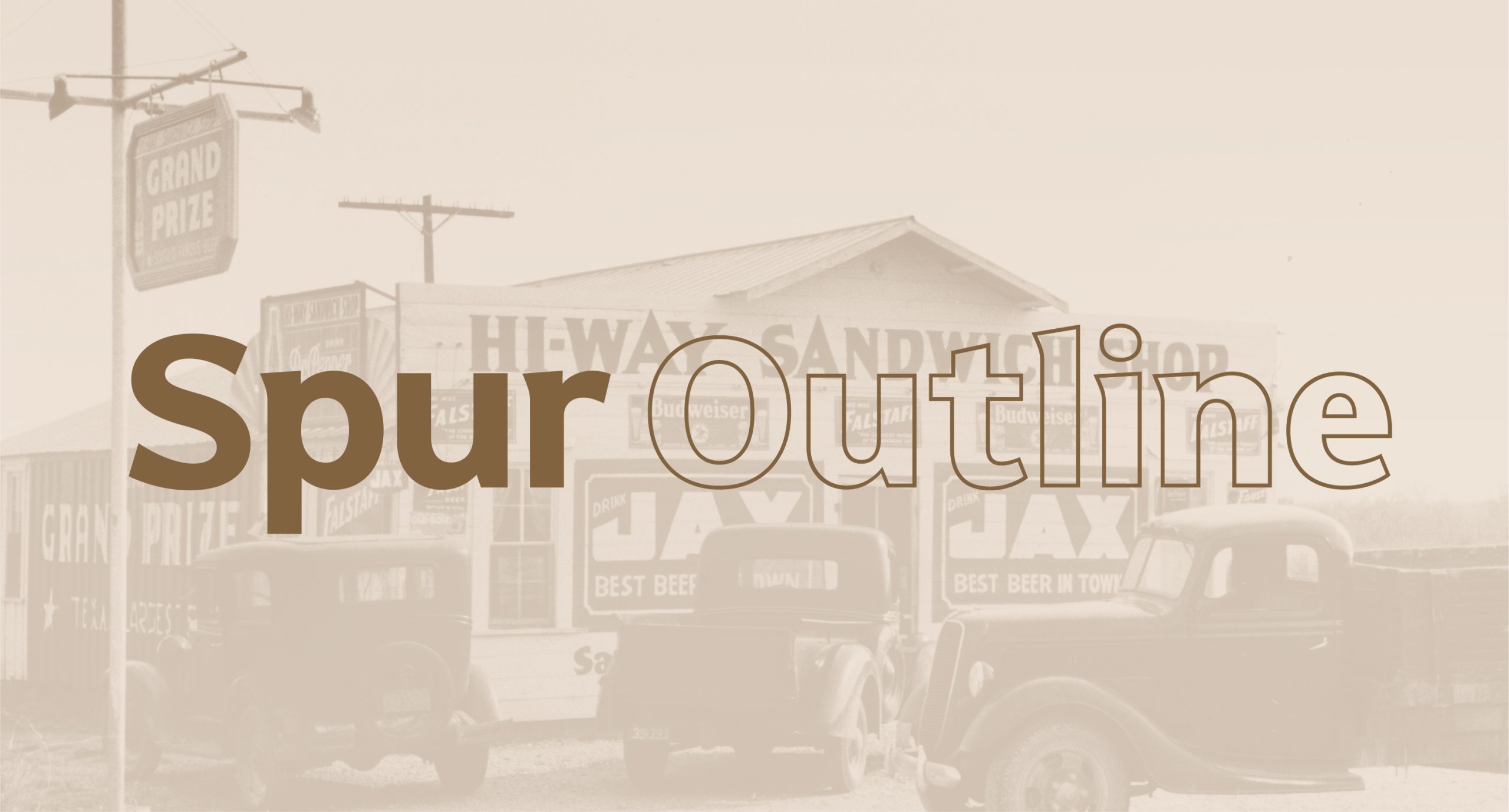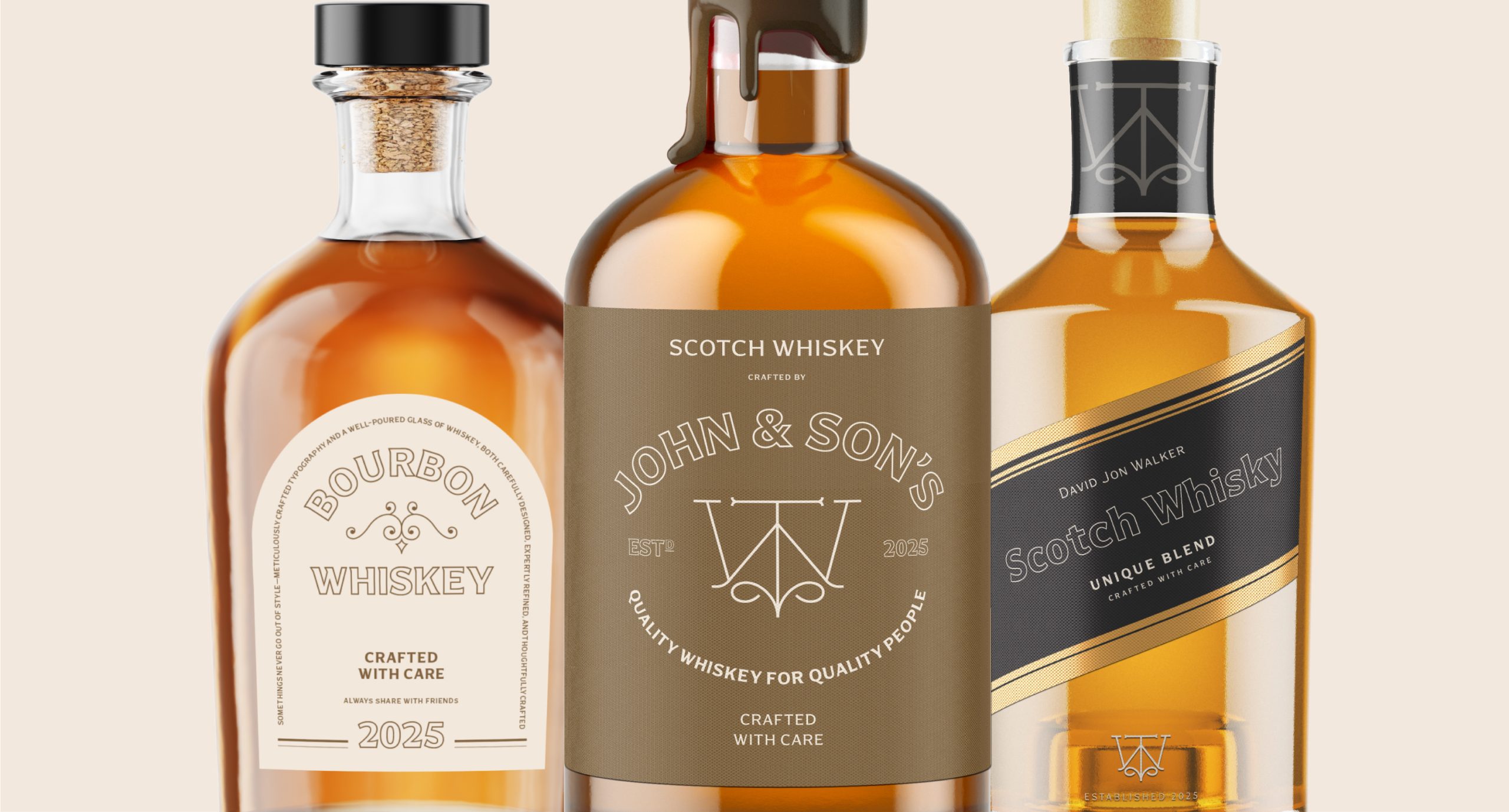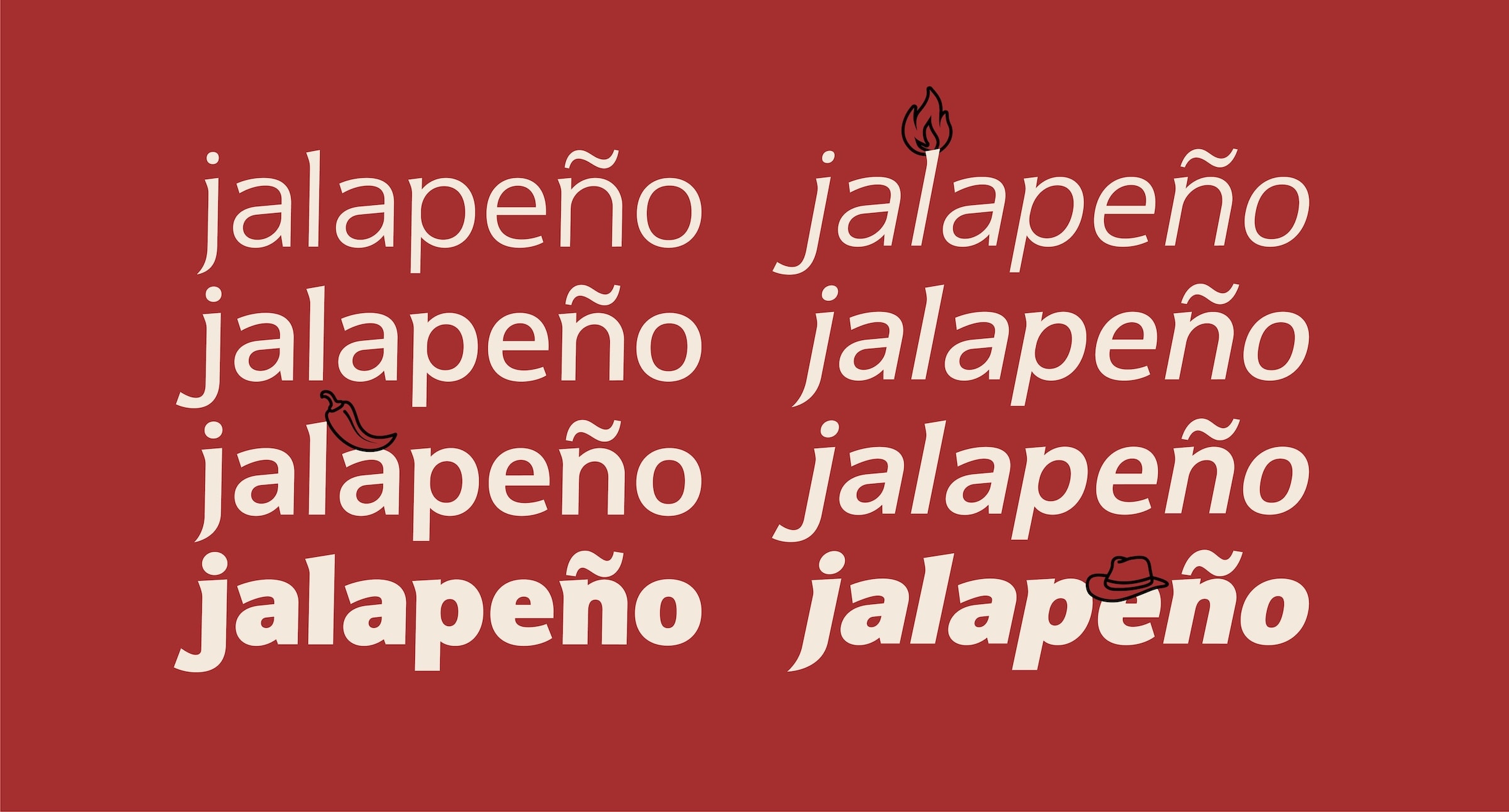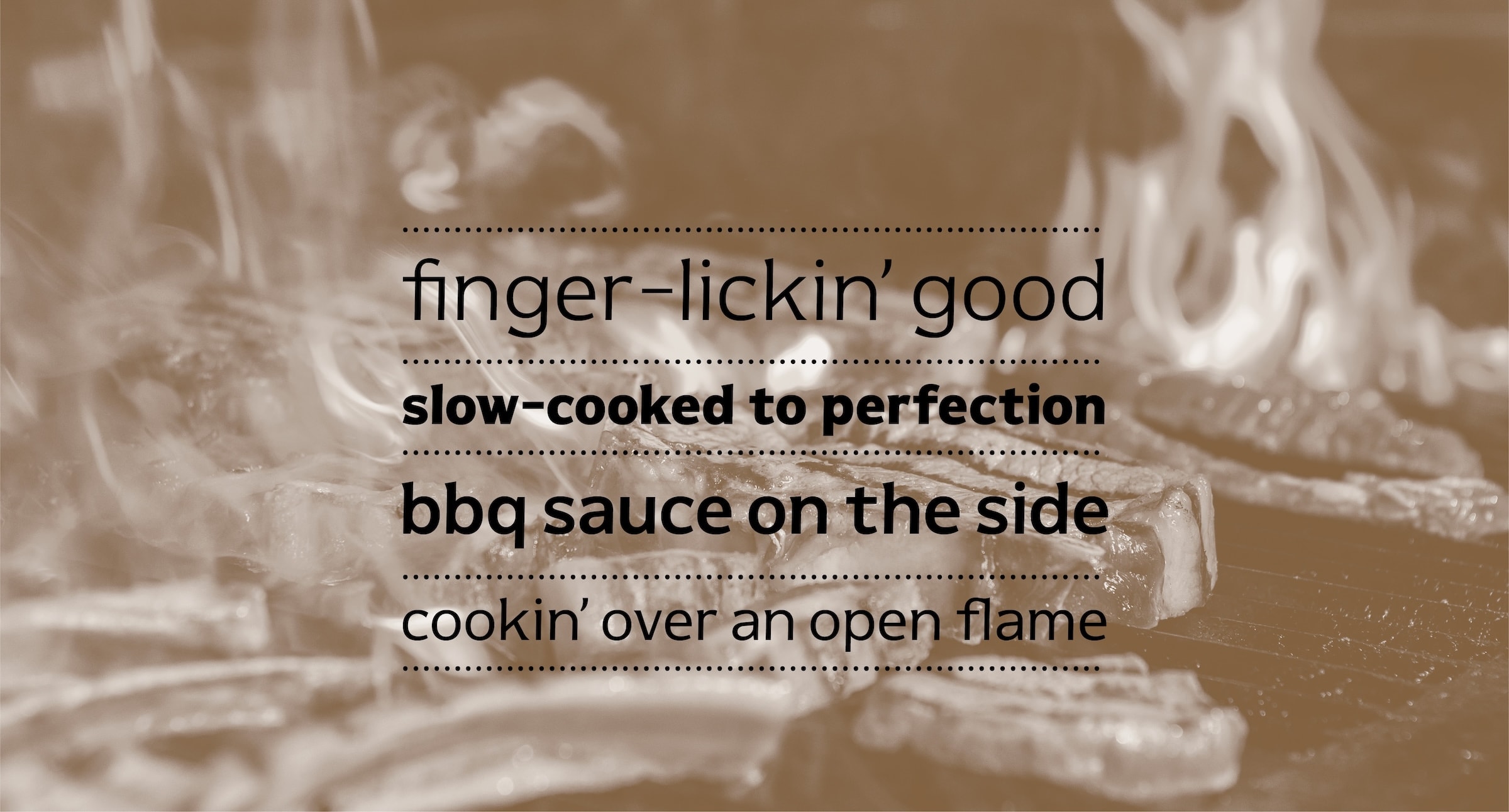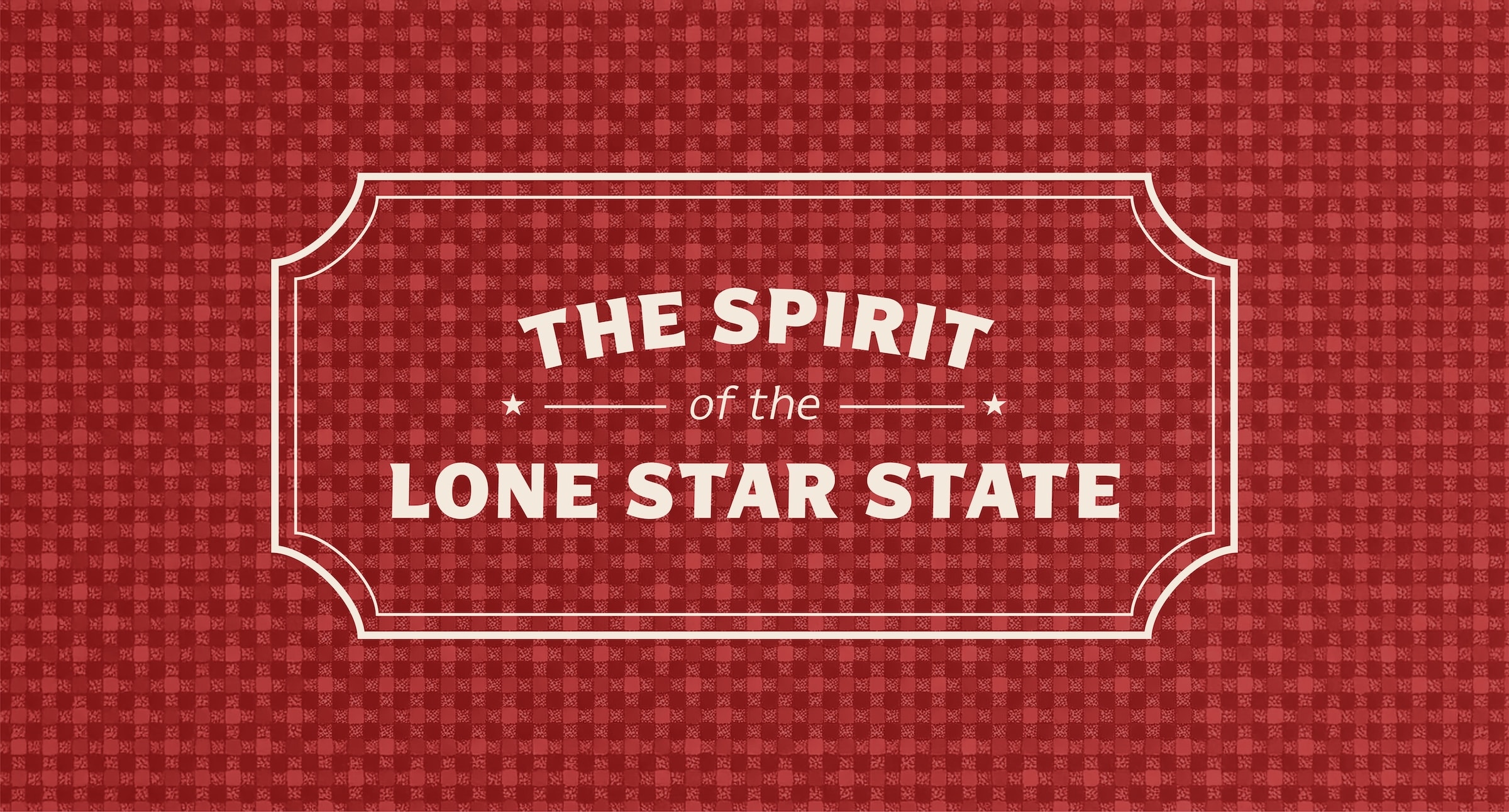
Spur & Spur Outline
John Kudos
Mares Rayeshtyan
Inspired by mid-century Texas roadside eateries, this typeface captures the bold, utilitarian charm of hand-lettered BBQ signage. It’s designed to bring a sense of Americana, grit, and local flavor to modern visual storytelling. Spur pays homage to the old-school branding irons and bold signage of Texas BBQ. It evokes a sense of bold, nostalgic Texas spirit, bringing together the authentic feel of a BBQ cookout.